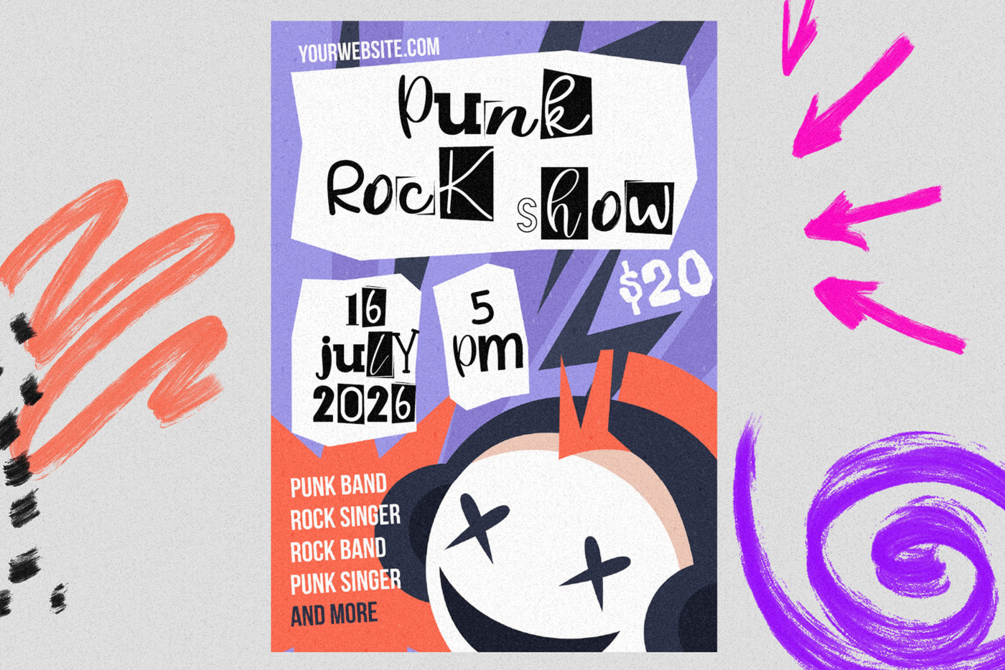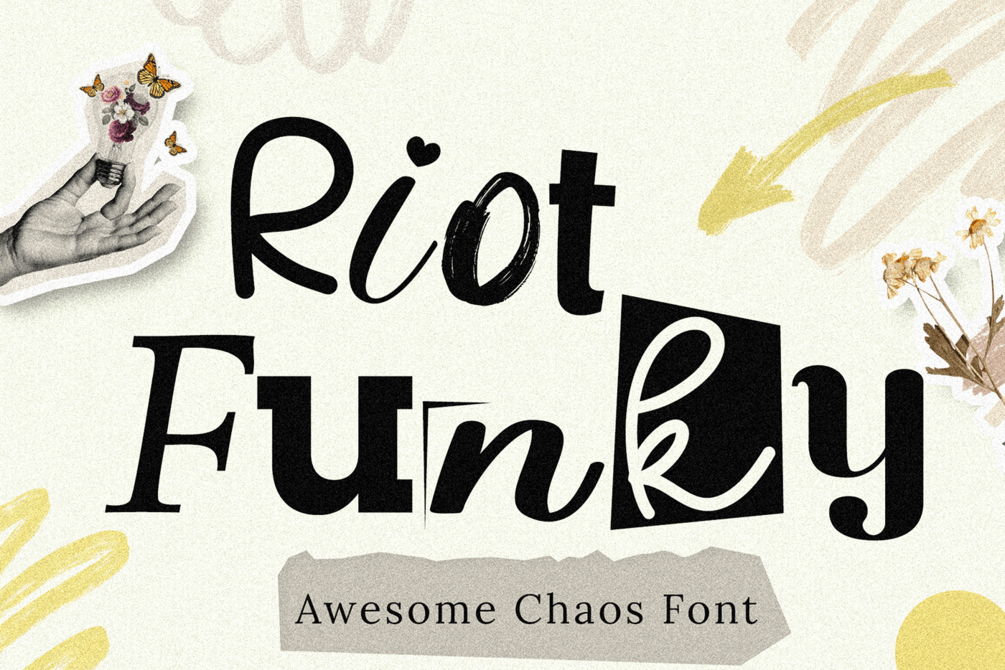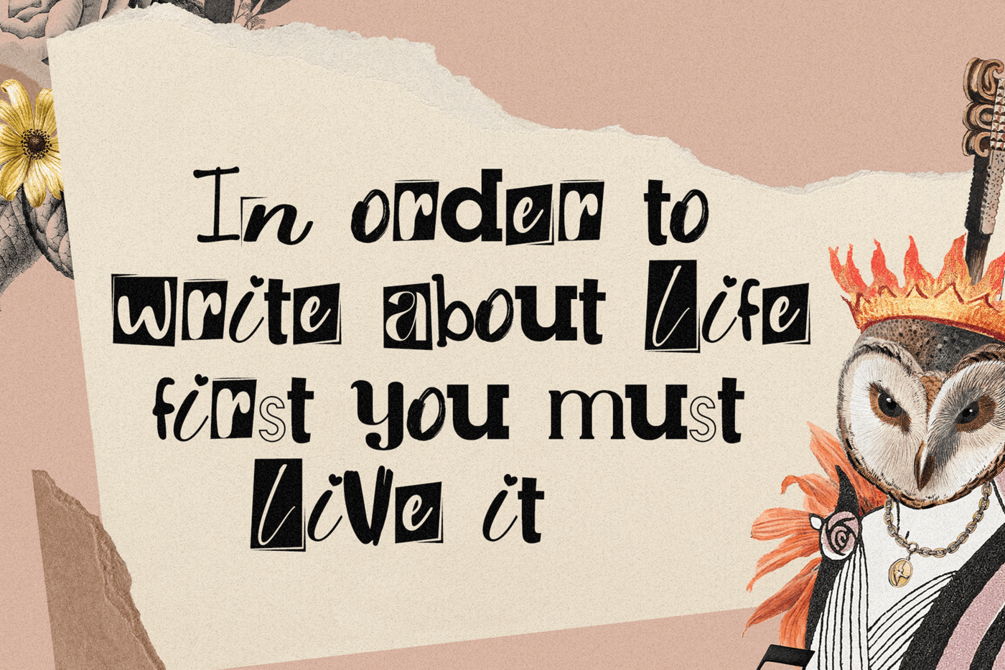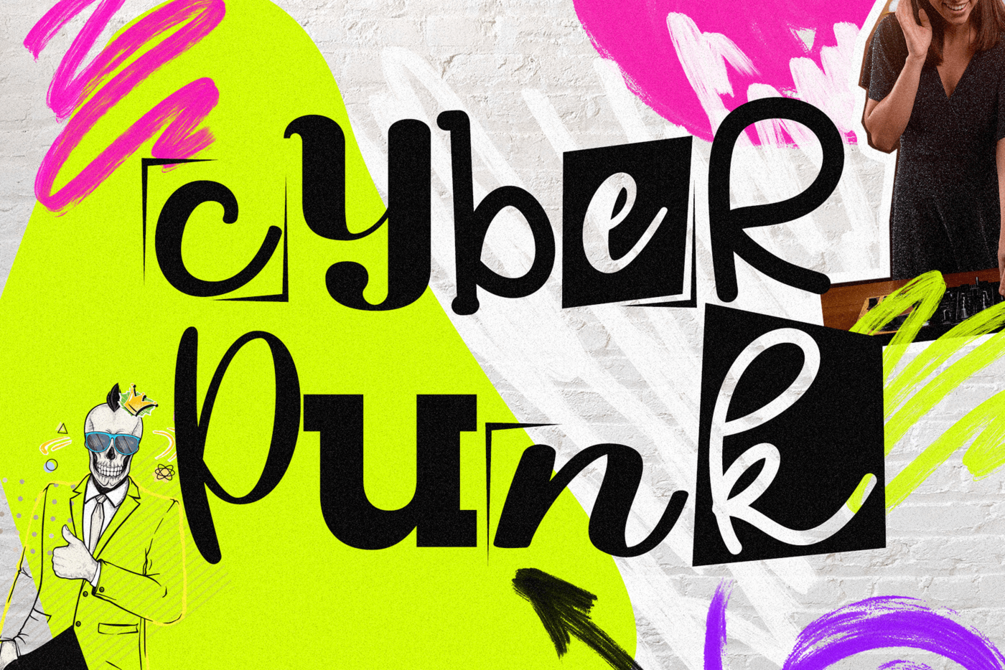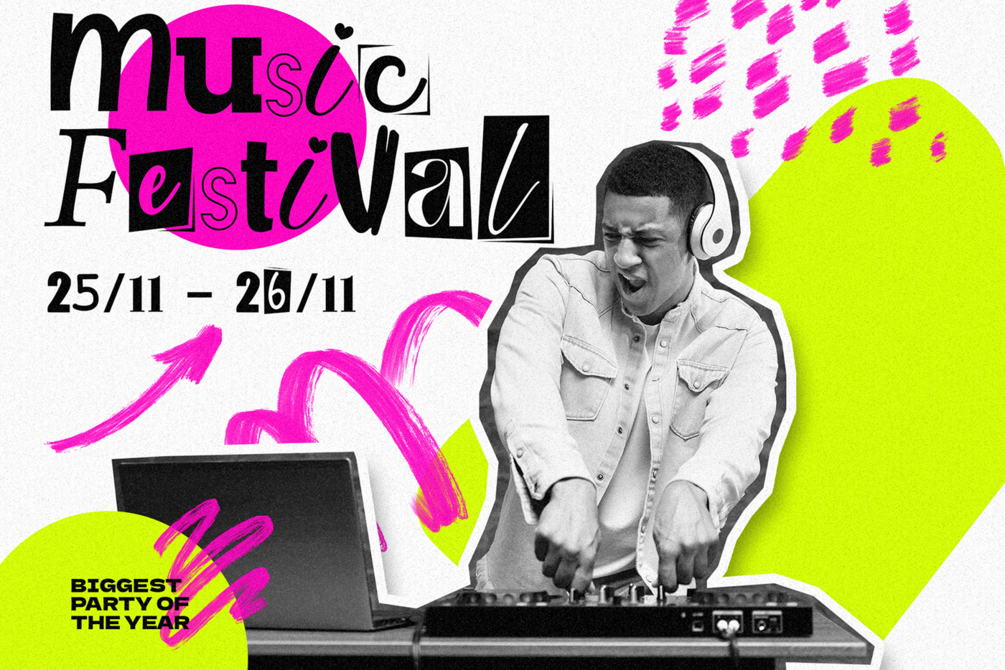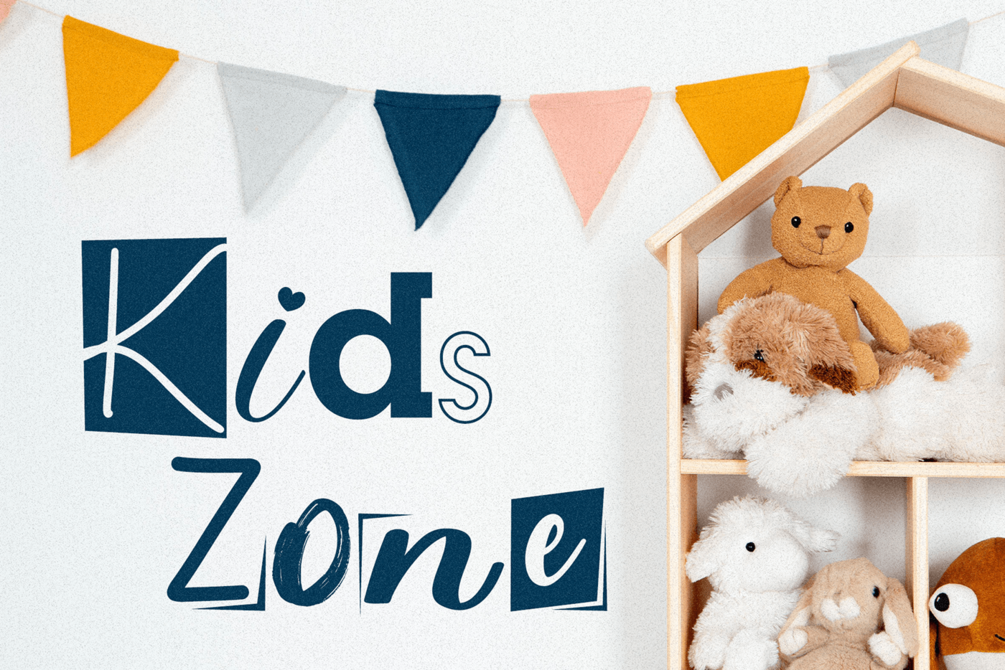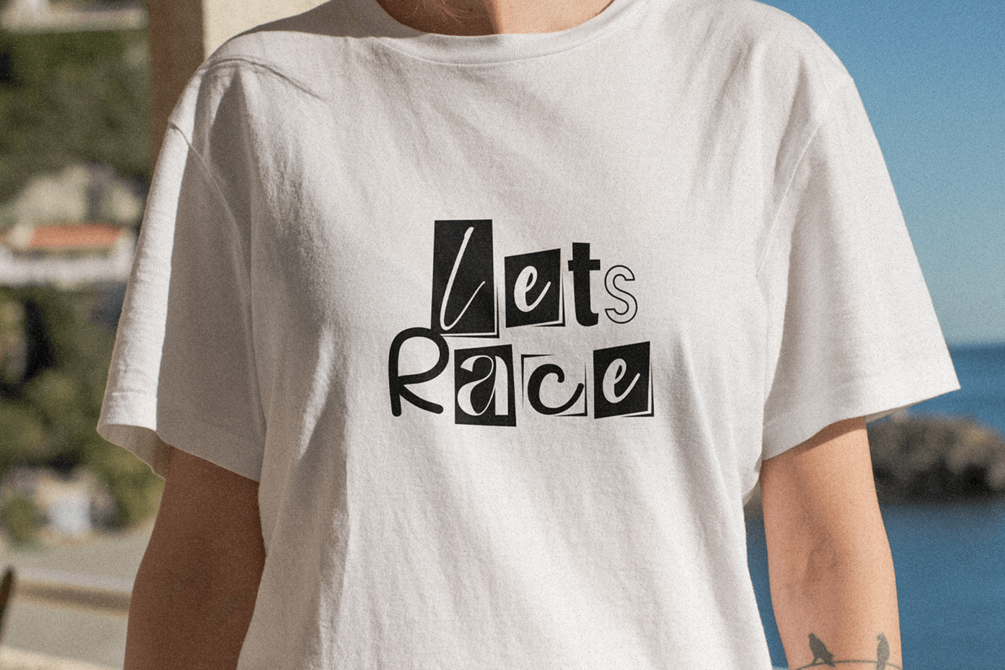
Riot funky
A bold, eclectic font with a unique twist.
Perfect for posters, templates, and creative projects.
Make your designs stand out and leave a lasting impression!